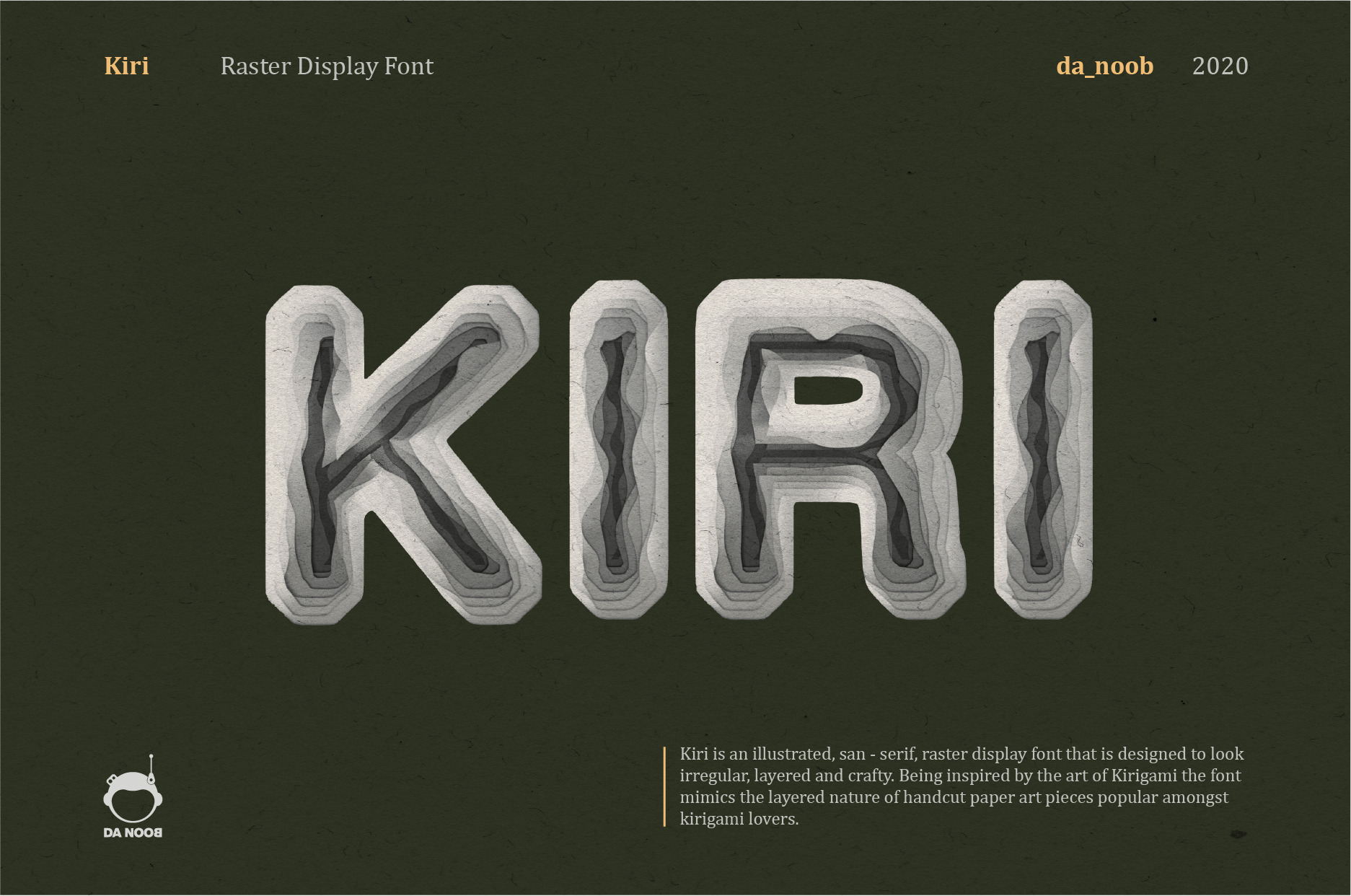
Kiri - Raster display font
Kiri is an illustrated, San - serif, raster display font that is designed to look irregular, layered and crafty. Being inspired by the art of Kirigami the font mimics the layered nature of hand cut paper art pieces popular among kirigami lovers.
Thought the font has distinct use cases depending on the creator, it can be best used for headings, short words and illustrative typographic projects.
PLEASE NOTE that this is a display font.
The font does not contain special characters and small alphabets.
The font comes in grey scale so that you can color it according to your need.
This is not a vector font.